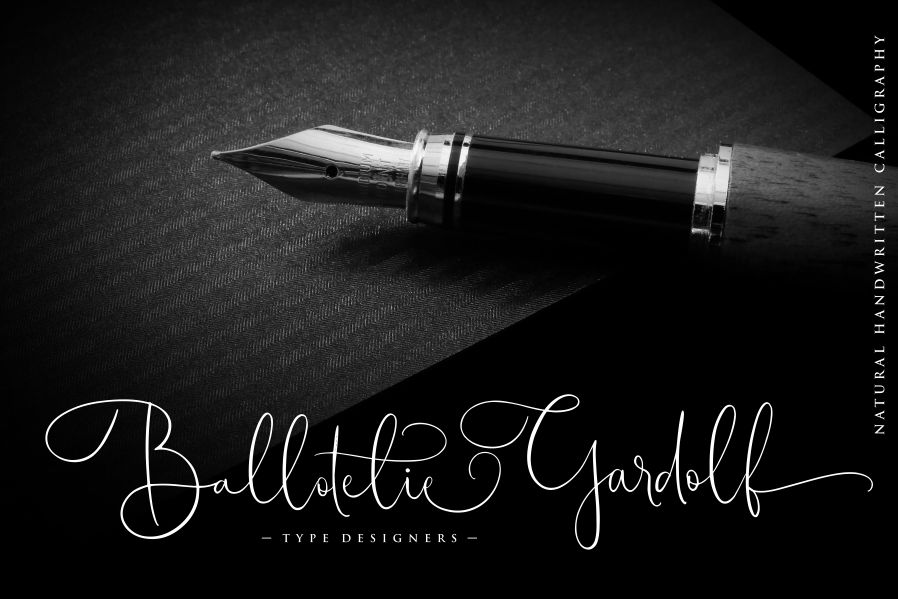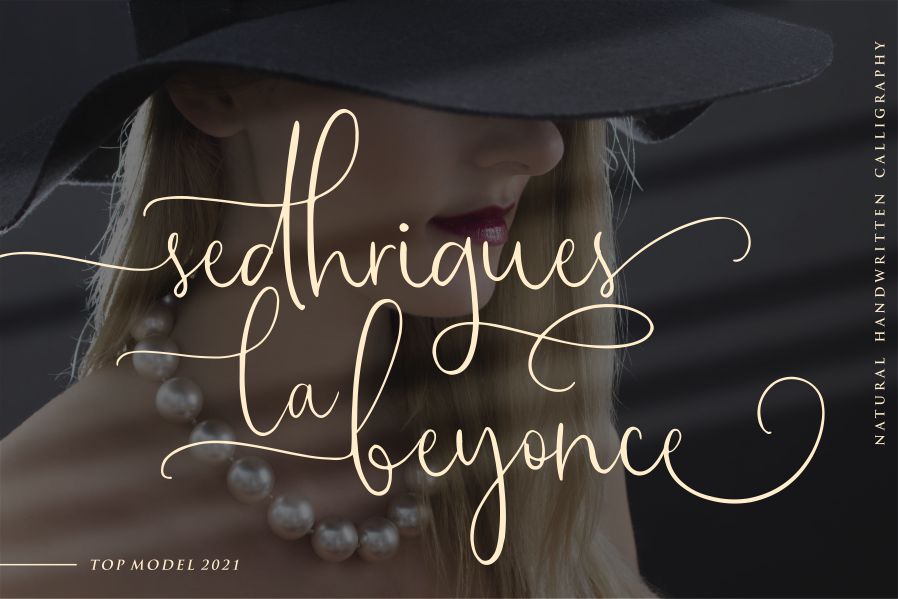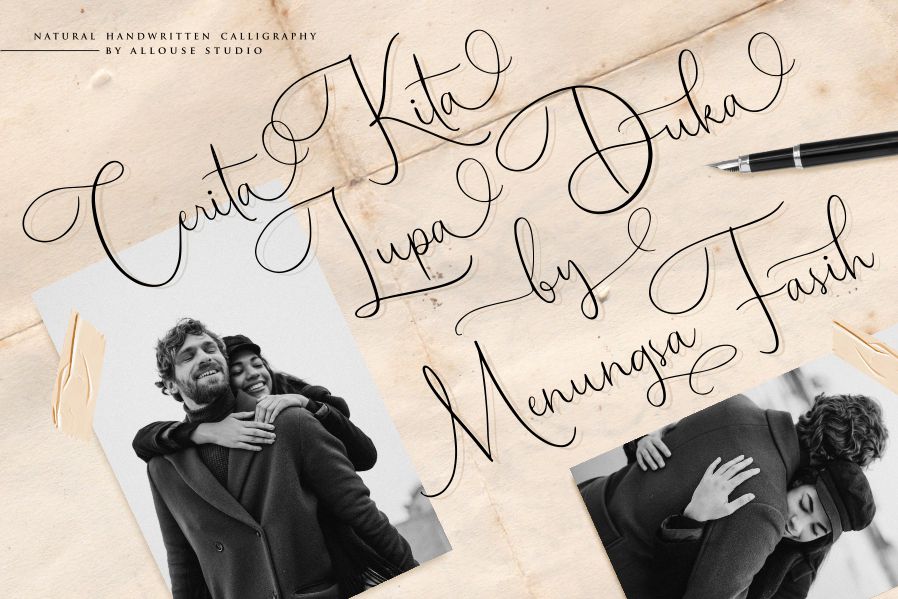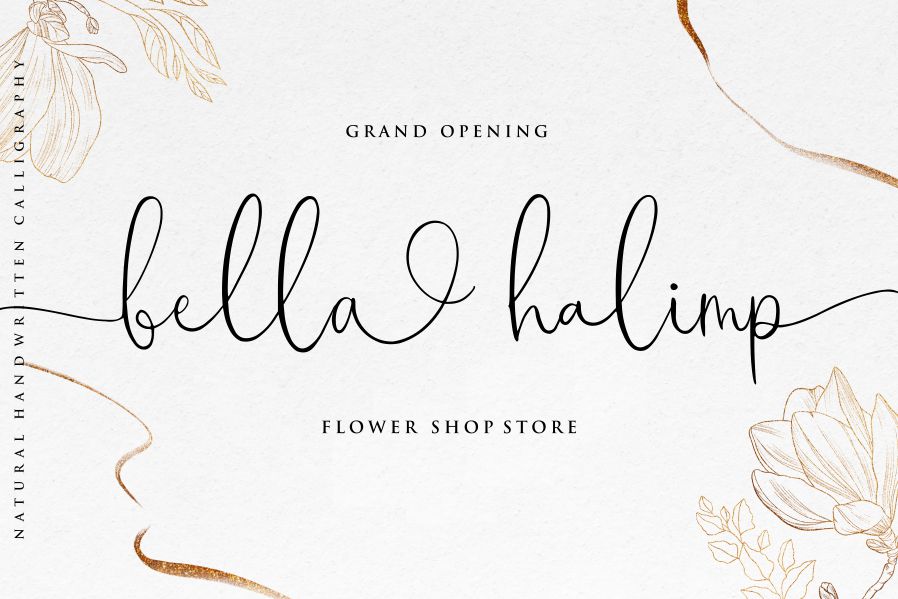
Maestrography Font
Maestrography Handwritten Font
This font is perfect for any titles, logo, product packaging, branding project, megazine, social media, wedding, or just used to express words above the background.
Maestrography come with much features. Ligatures, beginning and ending swash, stylistic alternates and Multi-Lingual Support.